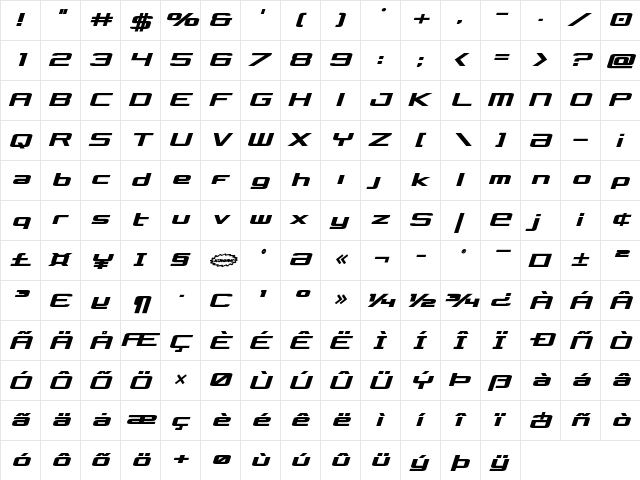
Concielian Bold Semi-Italic Font Preview
Design Context for Concielian Bold Semi-Italic Typeface
Concielian Bold Semi-Italic is a composed and adaptable typeface that performs quietly and consistently across a wide range of design contexts. Its italic angle brings a sense of urgency and motion to the letterforms. Its bold stroke weight gives it real presence on the page.